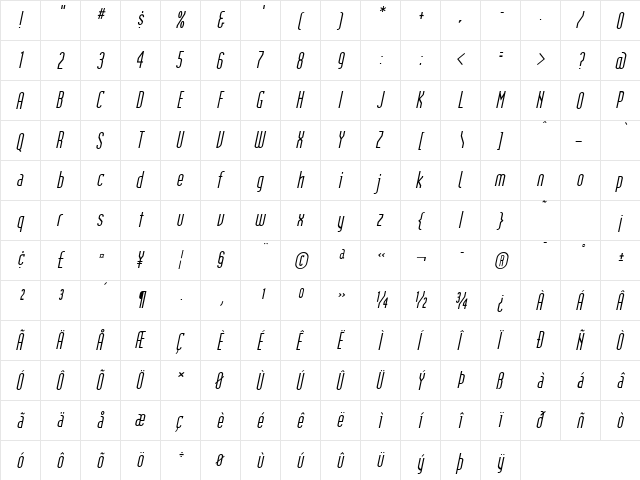
Industrial Oblique
Design Context for Industrial Typeface
Industrial is a composed and adaptable typeface that performs quietly and consistently across a wide range of design contexts. Its italic angle brings a sense of urgency and motion to the letterforms.
Pro Tip: Use Industrial for emphasis, pull quotes, and subheadings where its slanted energy can add rhythm to the layout.